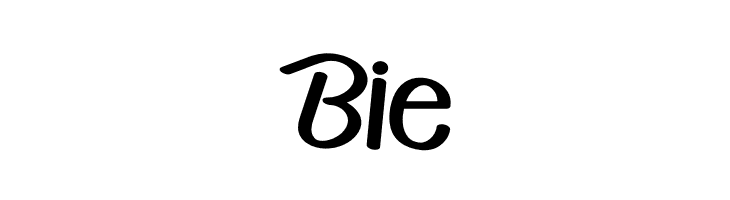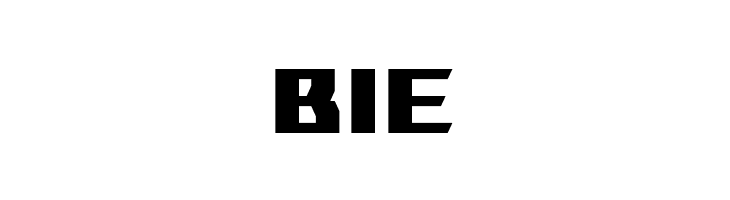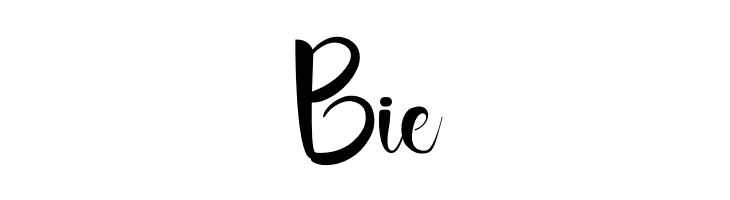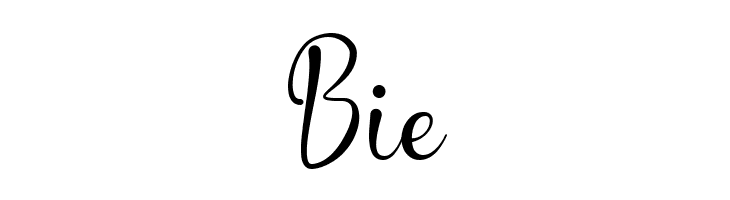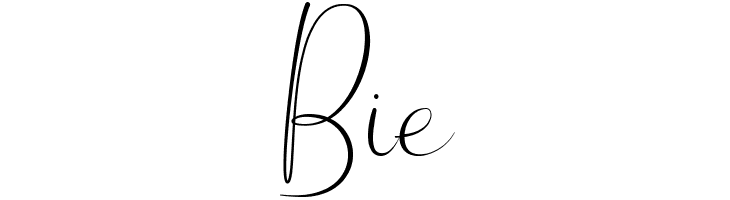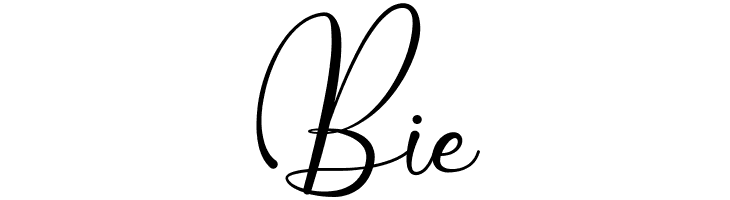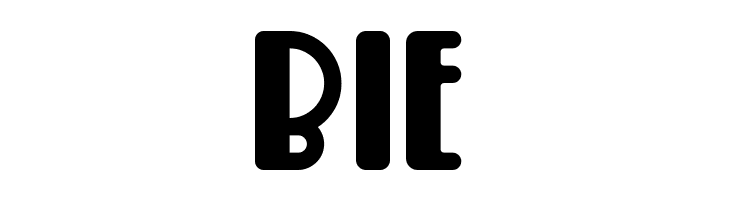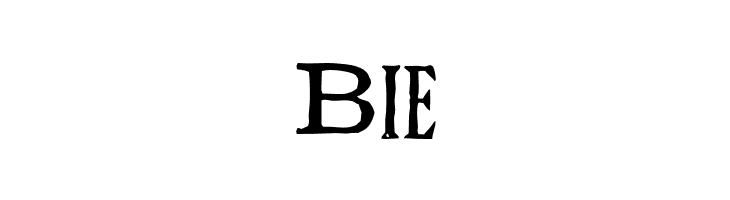
A playful, handwritten script font with rounded, dynamic characters.
A bold, geometric font with a futuristic, industrial style.
A playful and elegant script font with a modern twist, perfect for creative projects.
A playful and elegant handwritten script font with a whimsical flair.
An elegant, flowing script font with thin, elongated strokes and graceful curves.
An elegant, flowing script font with a modern, handwritten style.
An elegant, flowing script font with a classic calligraphic style.
A bold, rounded font with smooth curves and consistent weight.
A geometric, angular font with a modern, futuristic aesthetic.
A bold, vintage-style font with a hand-crafted appearance.